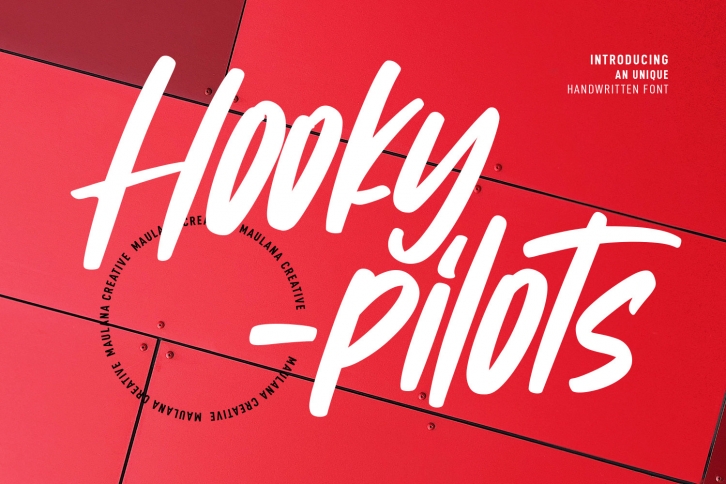
Hookypilots is an expressive slanted handwritten font. It features bold strokes, fun characters, ligatures and alternates. Add this relaxed and cool looking font to your favorite creations and notice how easily they come to life.